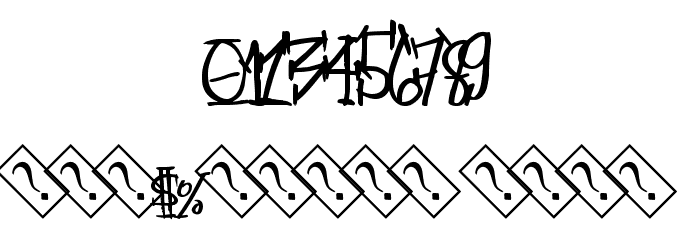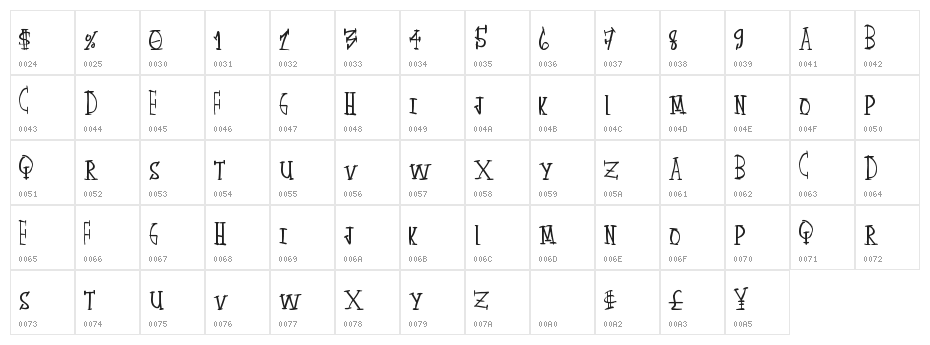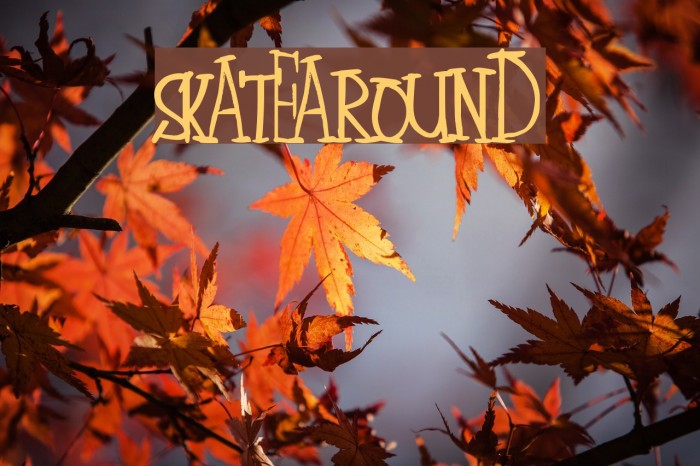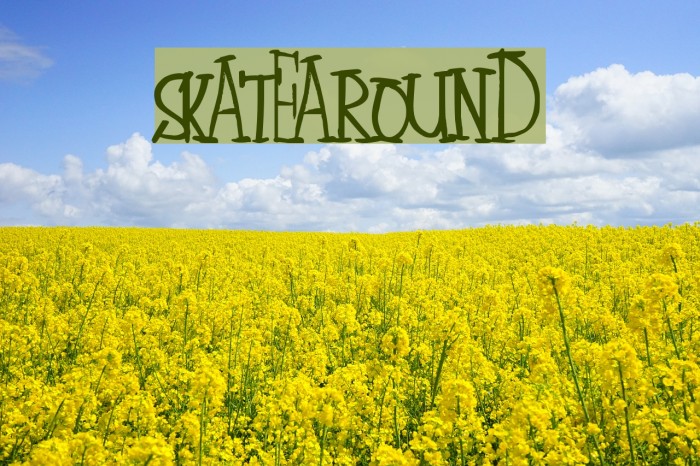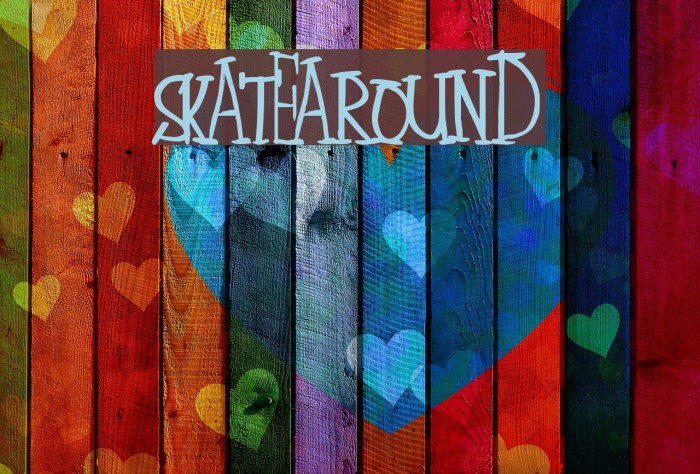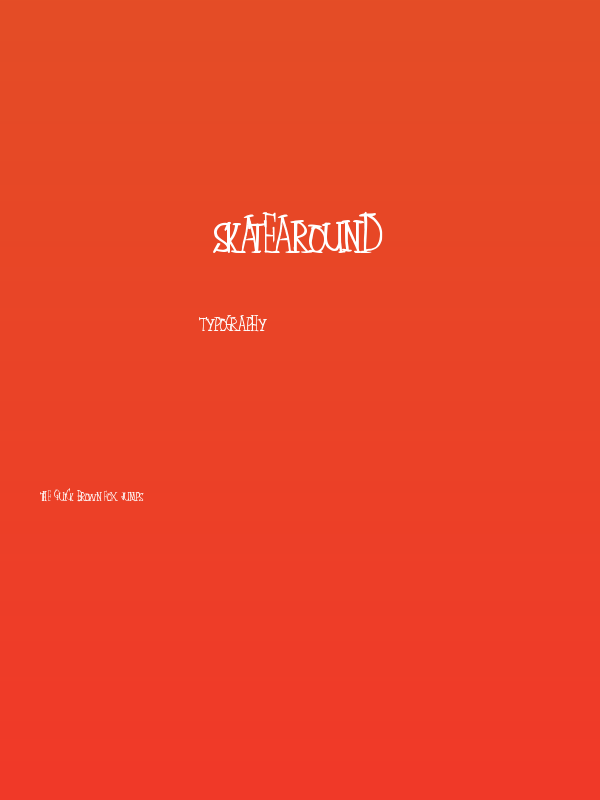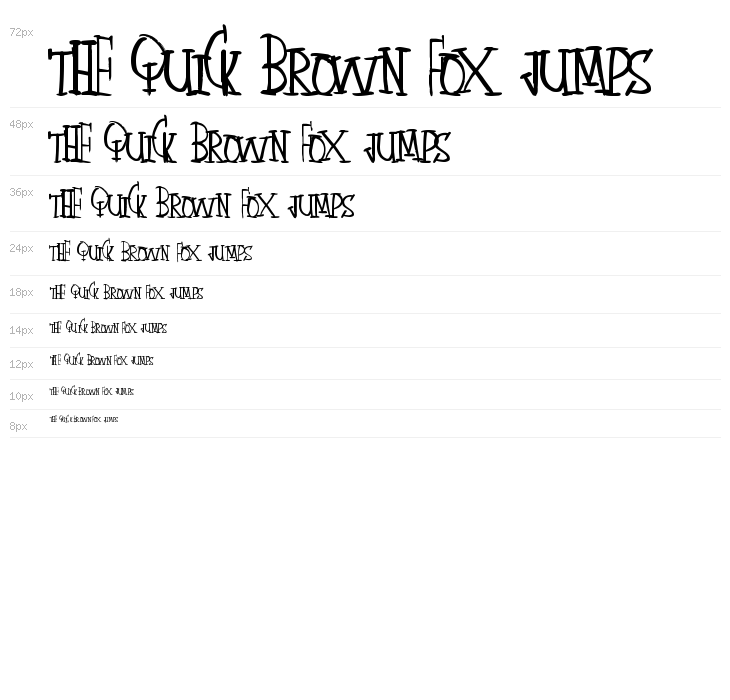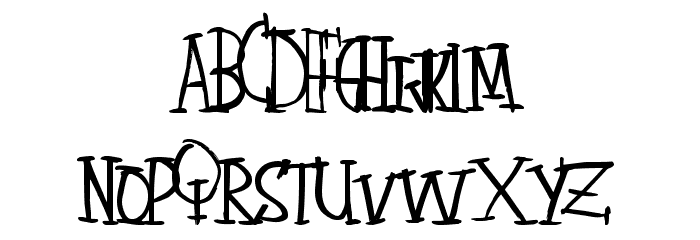
SkateAround Font
SkateAround Description
This font features a unique, edgy style with a graffiti-like appearance. The letters are characterized by sharp angles and irregular strokes, giving it a dynamic and rebellious feel. The uppercase and lowercase letters maintain a consistent style, with some letters featuring additional embellishments that enhance their visual impact. The numbers and special characters follow the same aesthetic, ensuring a cohesive look across all elements. This font is perfect for projects that require a bold and unconventional design, capturing attention with its distinctive flair.
| Overall Style | Modern, Urban |
| Use Case | Logos, Posters, Headlines |
| Proposed Projects | Ideal for street art designs, skateboarding brands, music album covers, and urban-themed posters. |